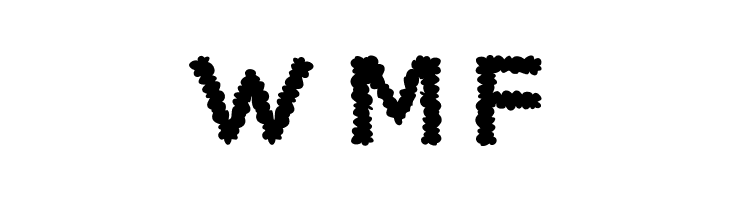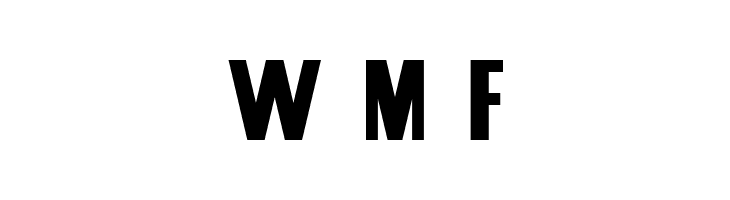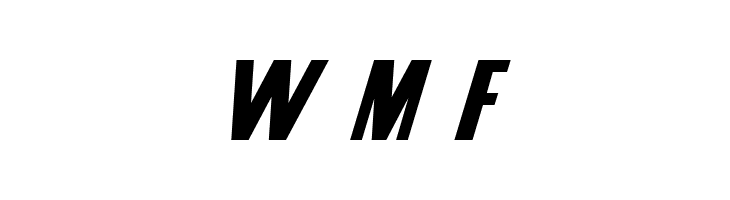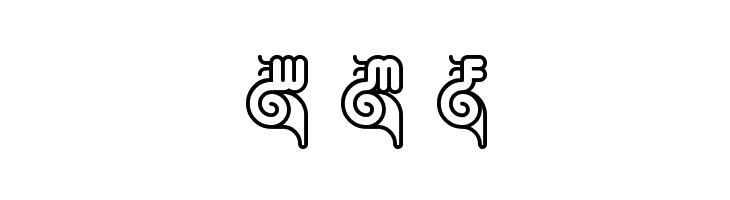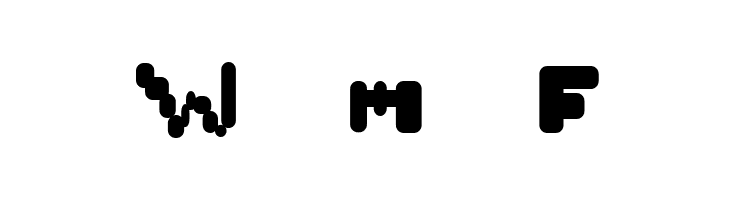
A playful, bold outlined font with a whimsical, cartoonish style.
A bold, chunky font with playful, rounded characters.
A bold, italicized font with high contrast and dynamic slanted characters.
A bold, blocky font ideal for impactful headlines and logos.
A modern, geometric font with tall, narrow characters and consistent stroke width.
A playful, bubbly font with rounded, textured characters.
A playful, bubbly font with a textured, rounded design.